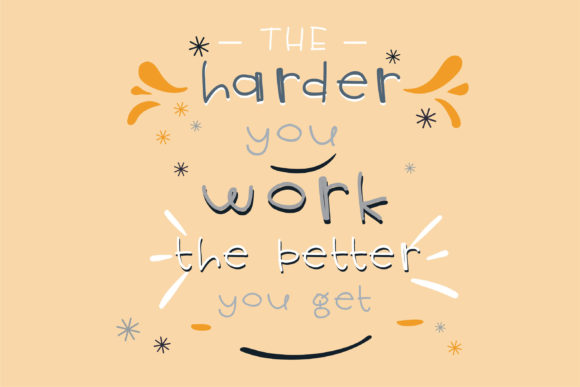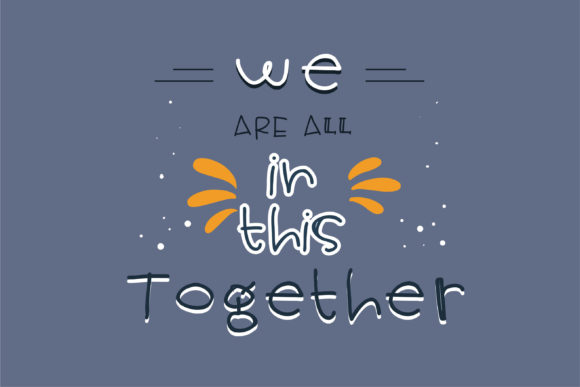
Tattle Tale Font
db-ku.com - Script & Handwritten -- This whimsical handwritten font has a very fun and youthful feel. It looks fantastic on storybooks, stationery, children-related designs, and kindergarten or back-to-school projects!